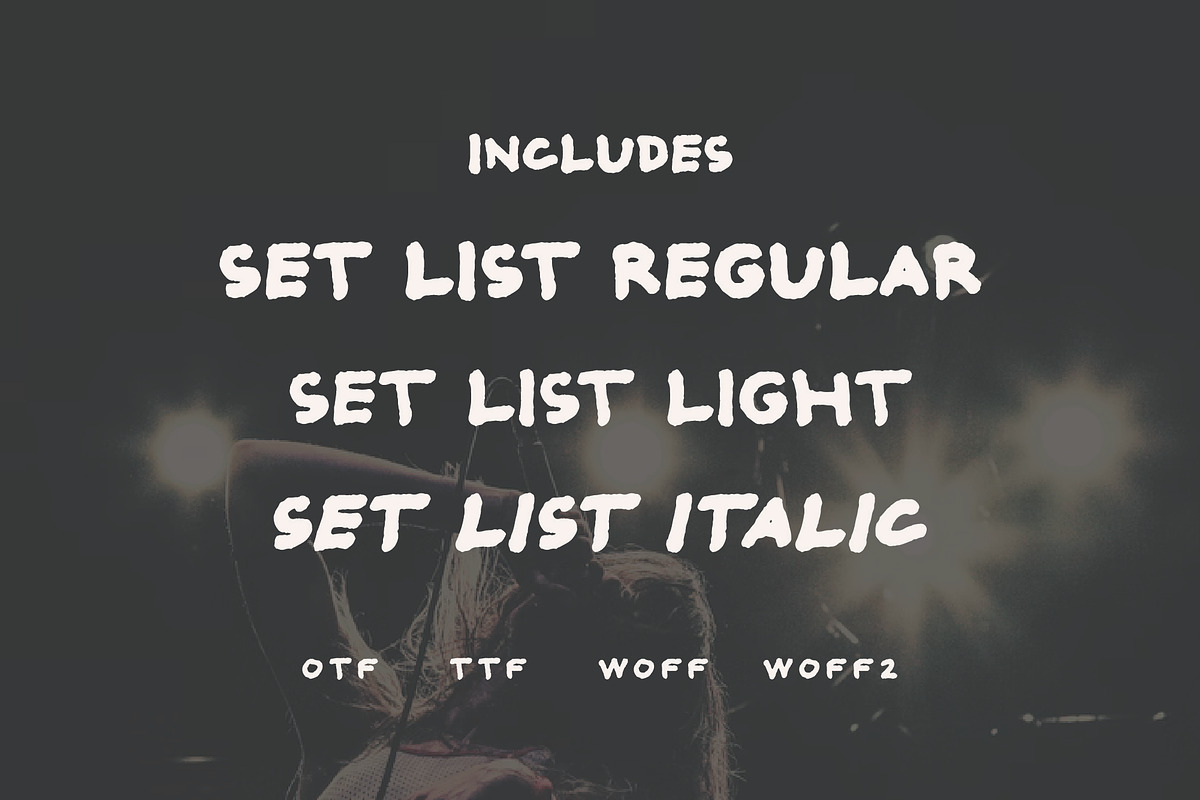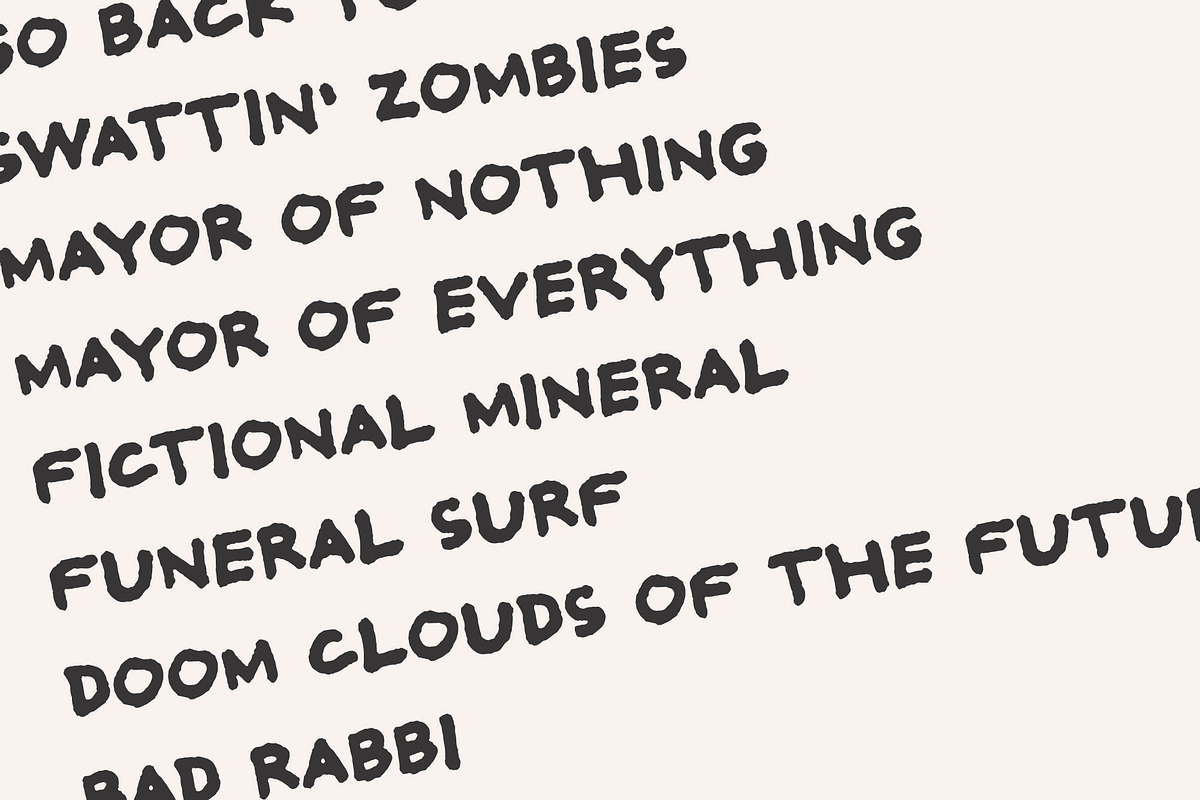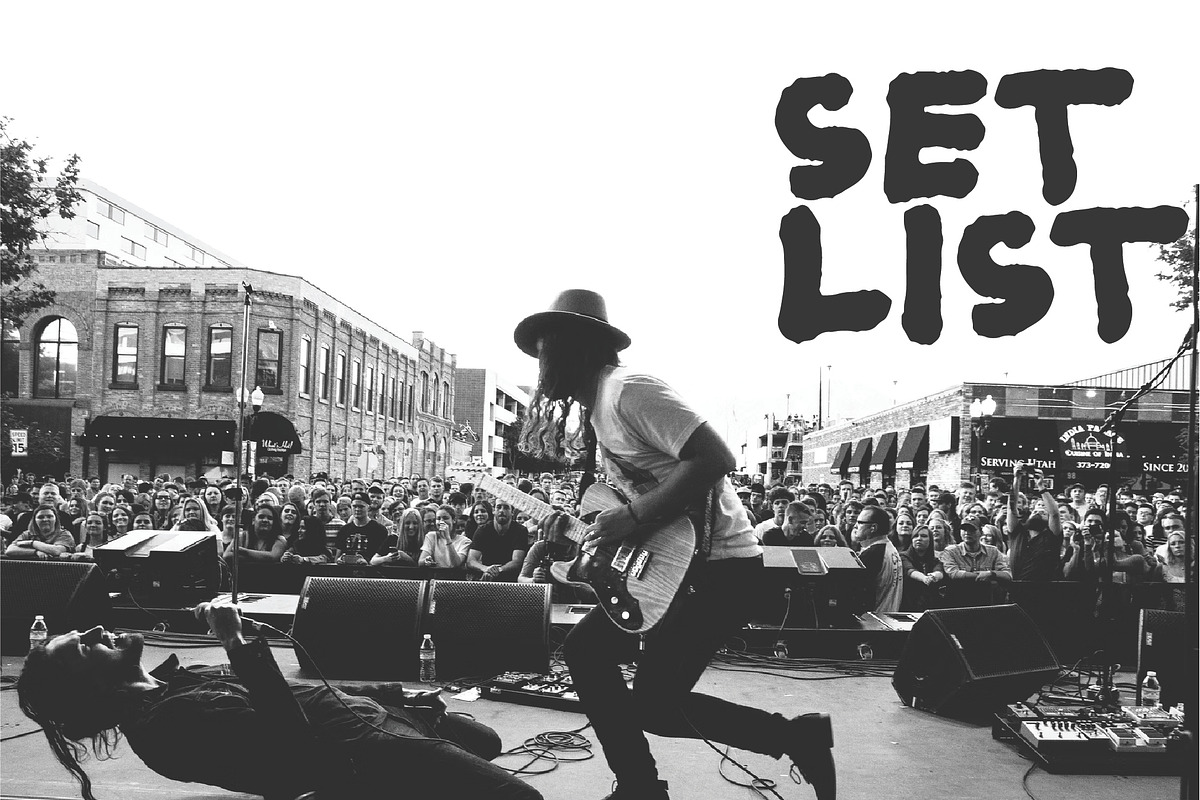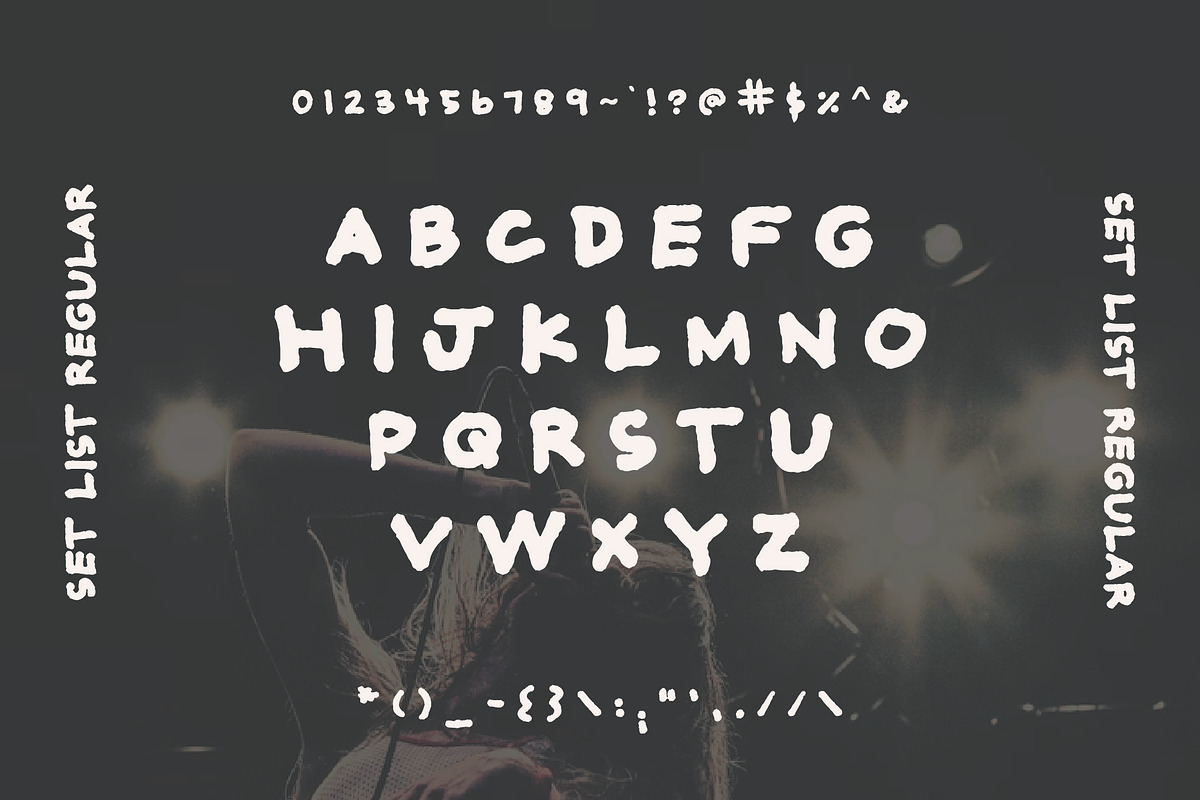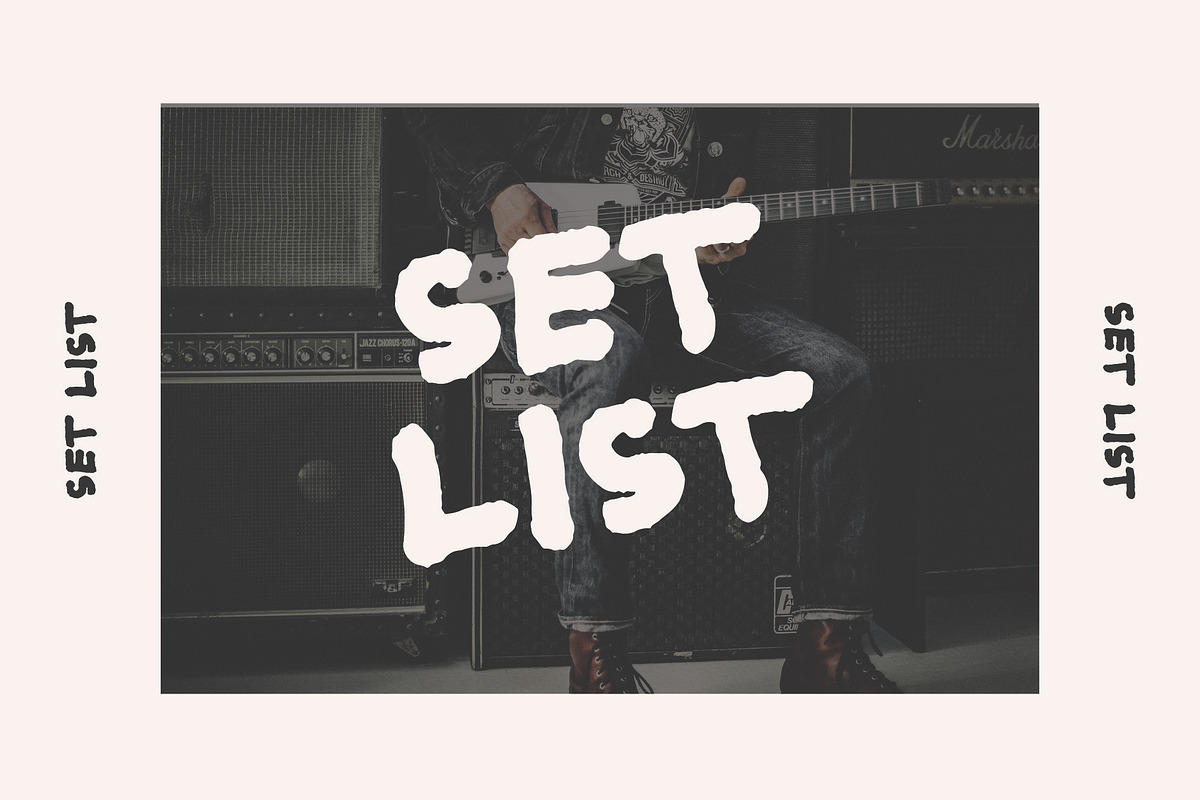
Set List
Set List is a unique, grungy, hand-created font family, including regular, light, and italic, to elevate your designs - from branding, logos, and promotional materials, to instagram posts, invitations, and print-on-demand graphics.